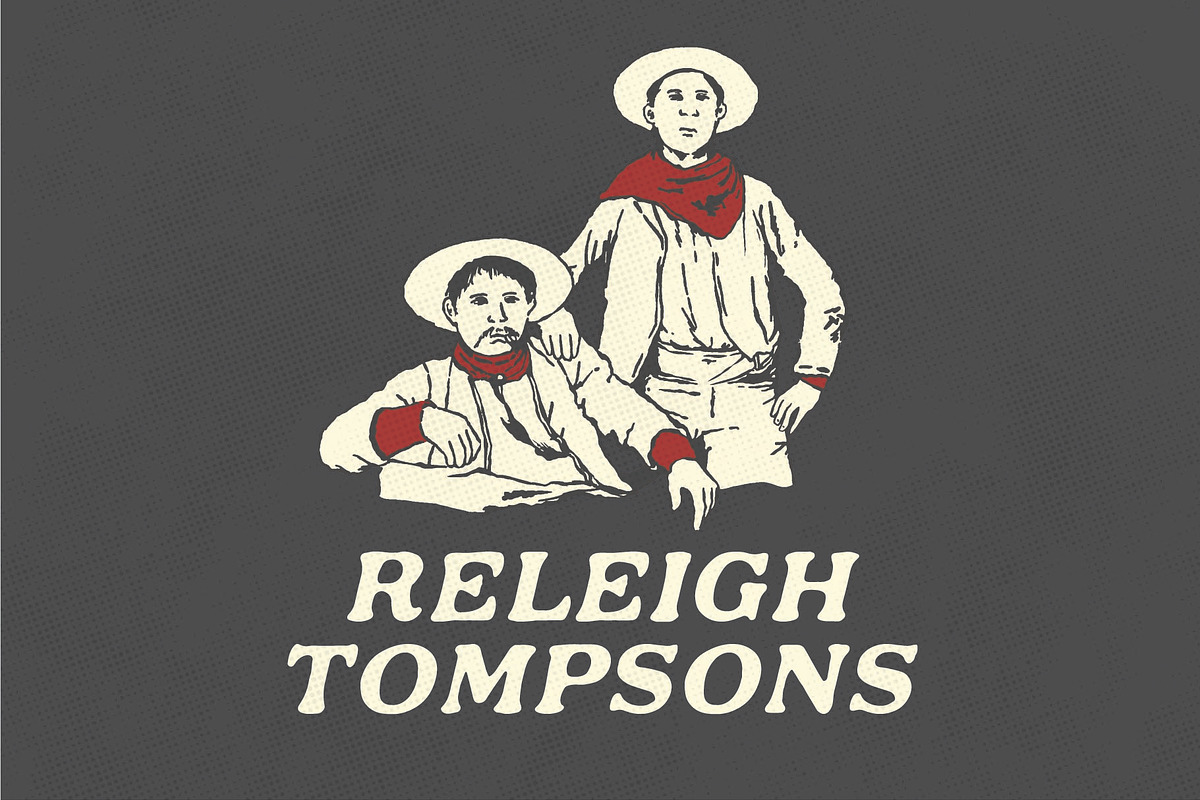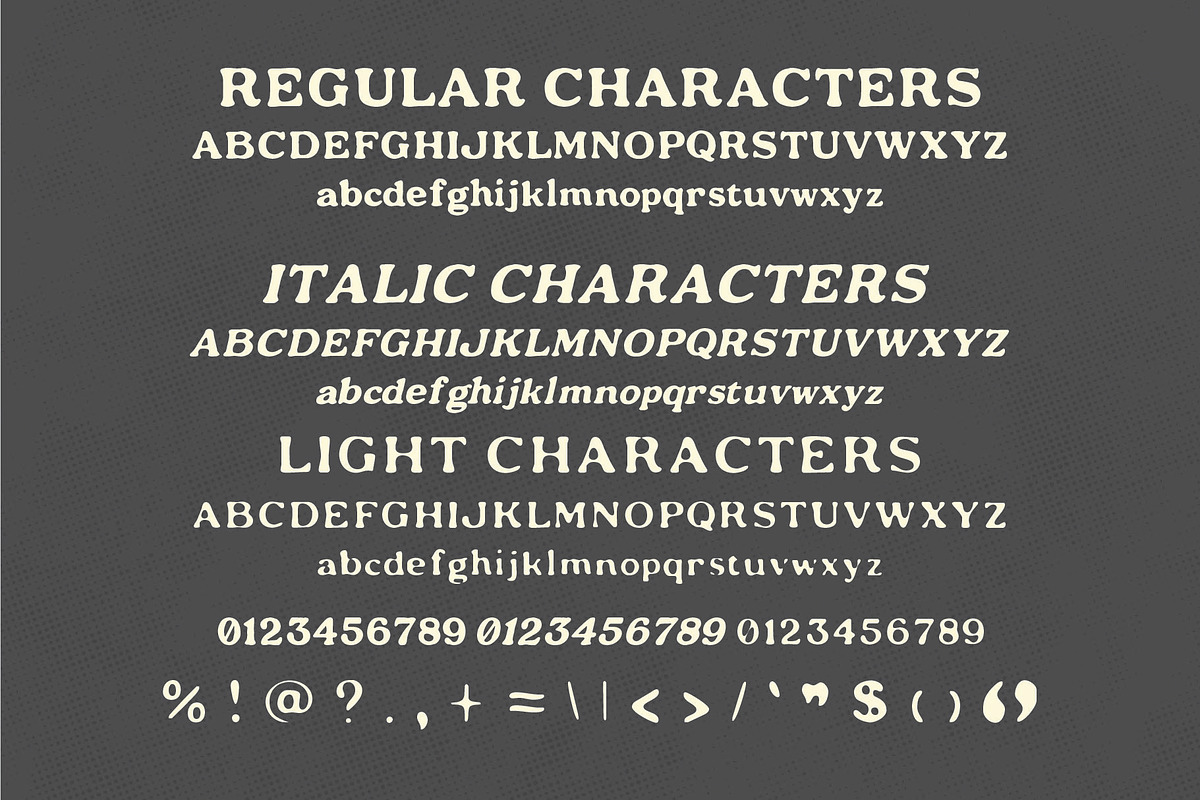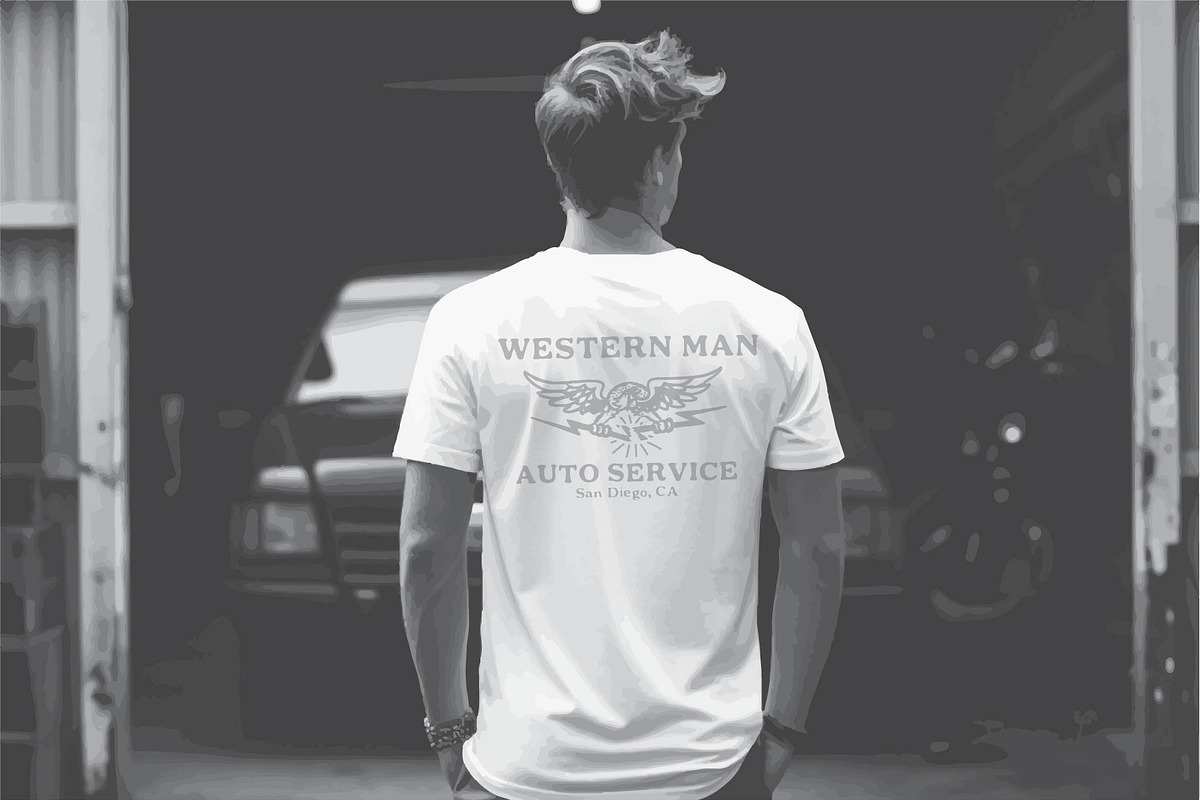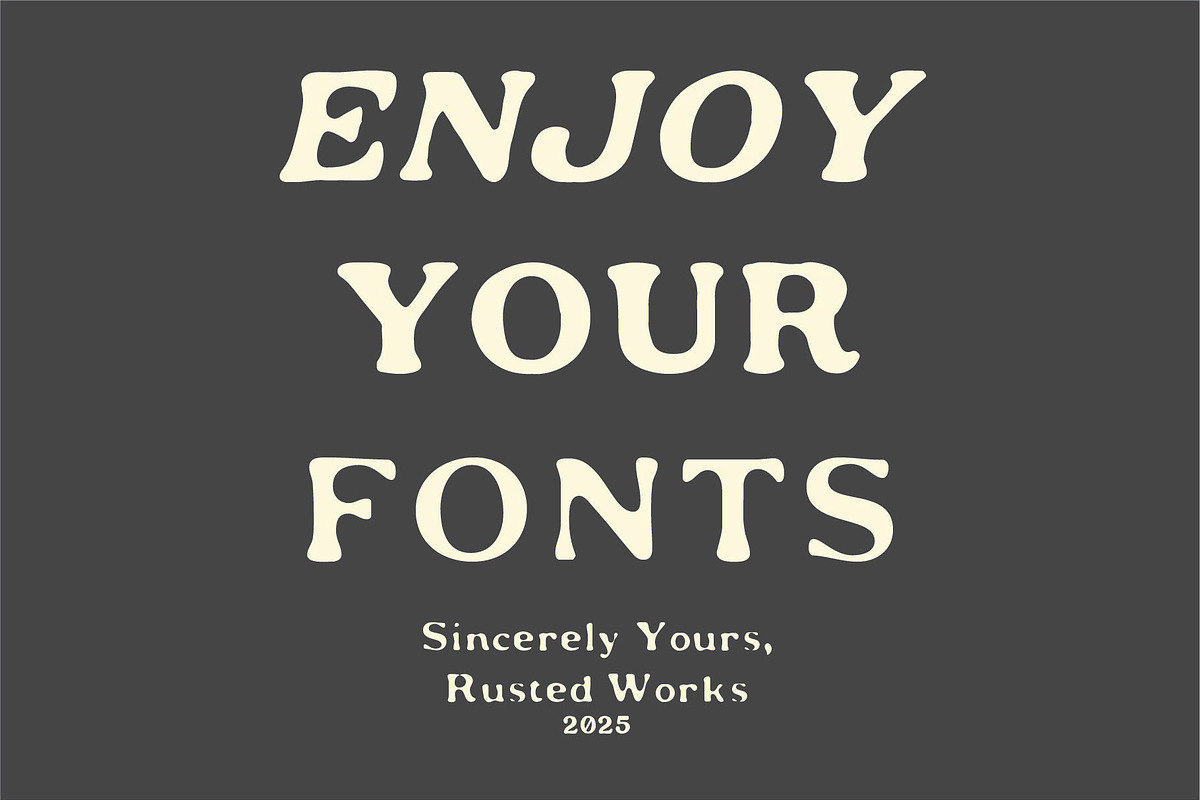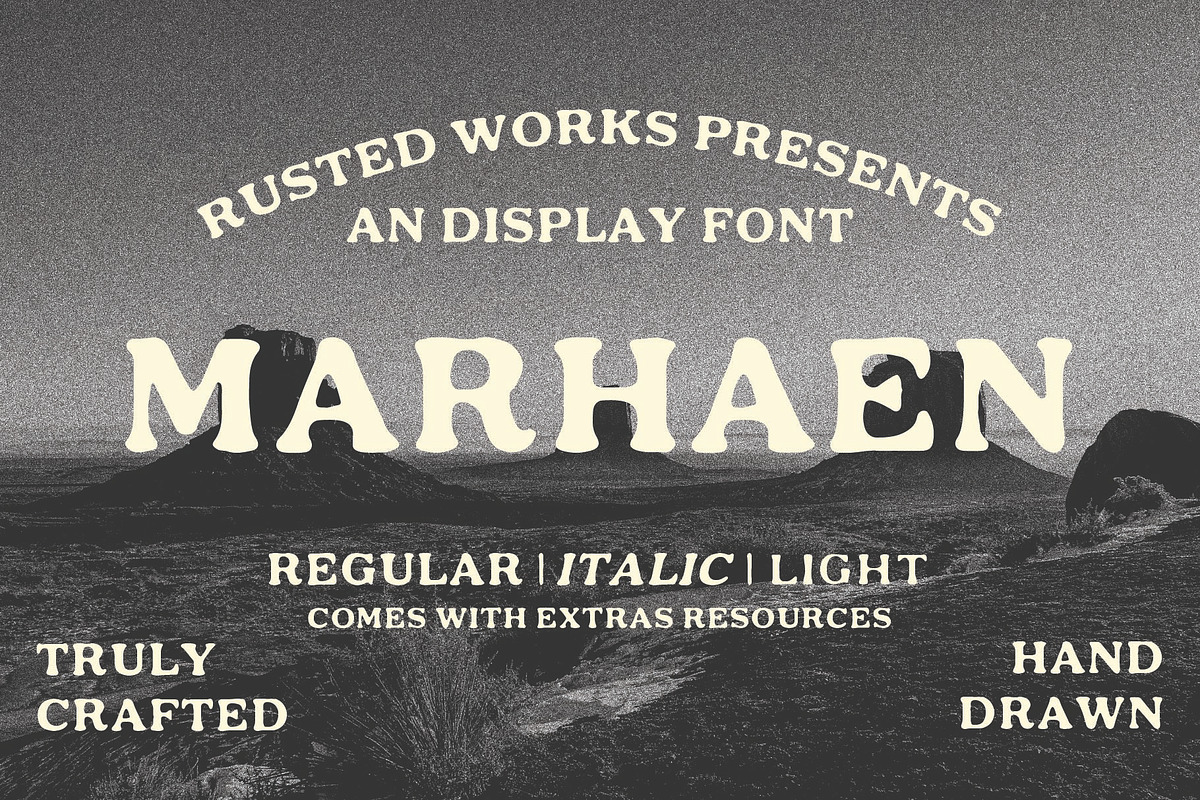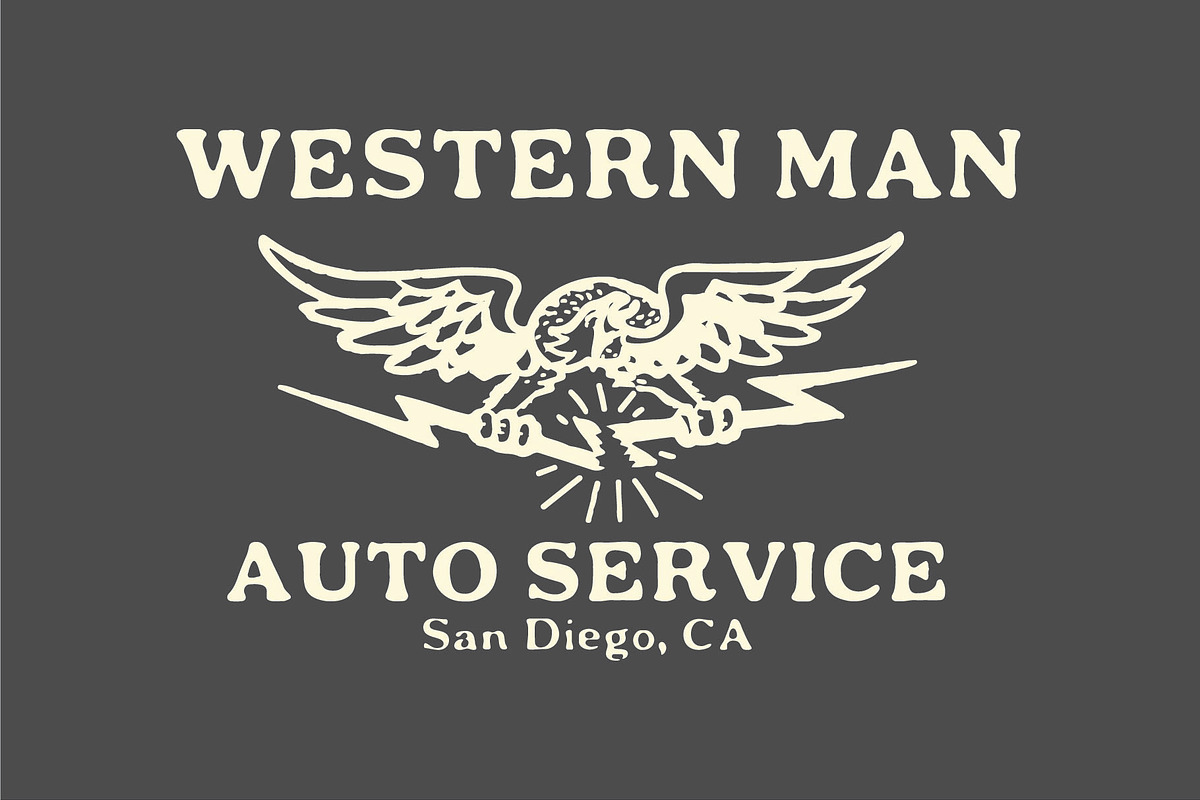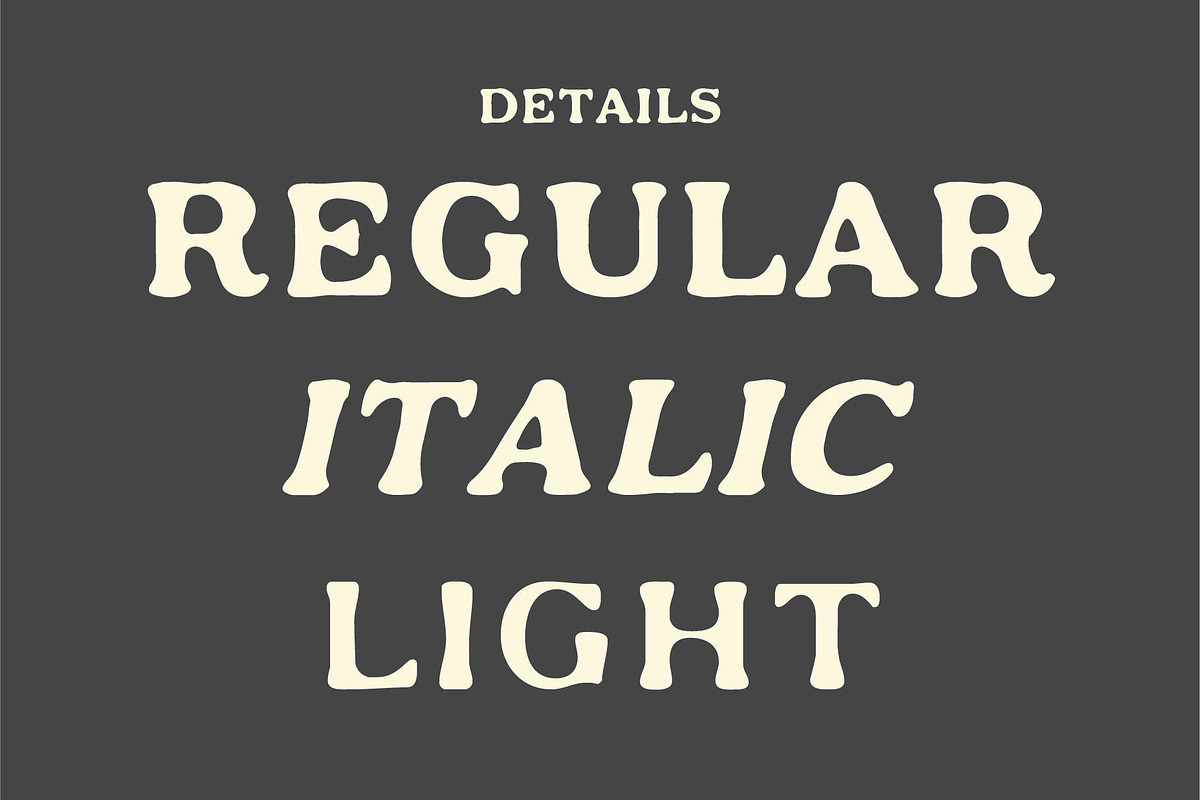
Marhaen - Vintage Slab Serif
Marhaen is a hand-crafted vintage slab serif display font inspired by classic Western posters, old signage, and rustic Americana typography. Each letter is carefully drawn to create a bold, organic, and truly distinctive look — perfect for designs that need character, warmth, and a strong visual presence.
Marhaen comes in Regular, Italic, and Light, giving you flexible options for headlines, logos, branding, posters, editorial titles, merchandise, and vintage-themed projects. +15 Graphic Resources.
This font is designed to deliver a handcrafted feel while maintaining professional readability and balance. Whether you’re creating a bold statement piece or a nostalgic visual mood, Marhaen brings authenticity and personality to your work.